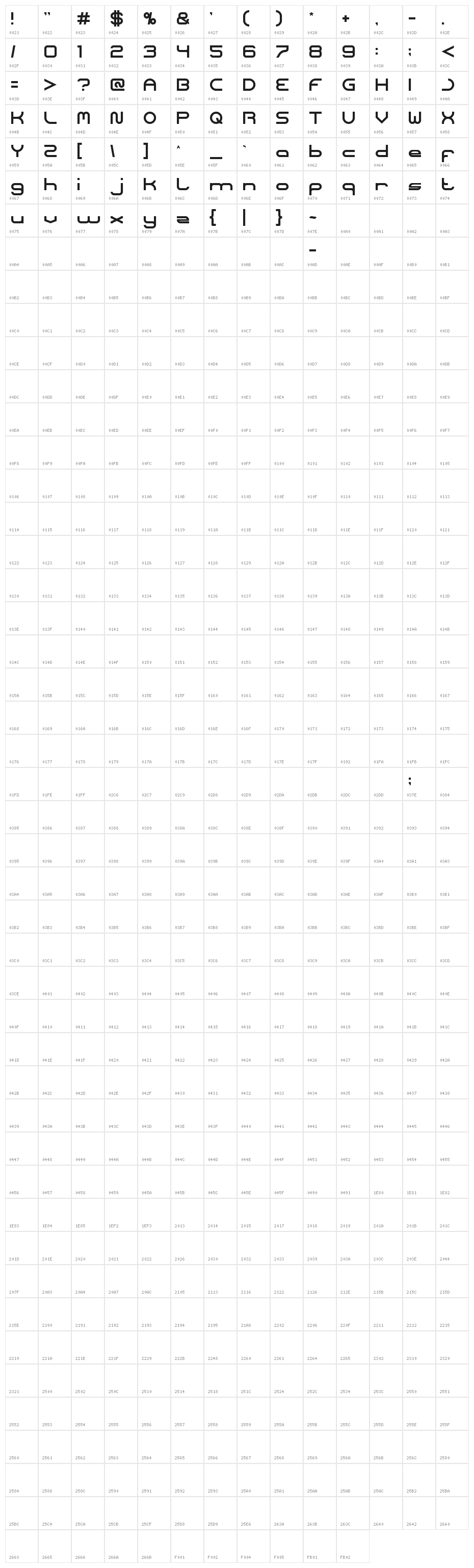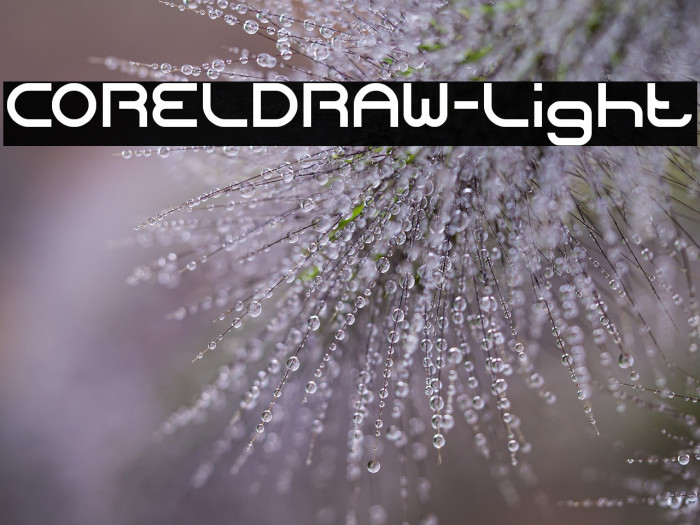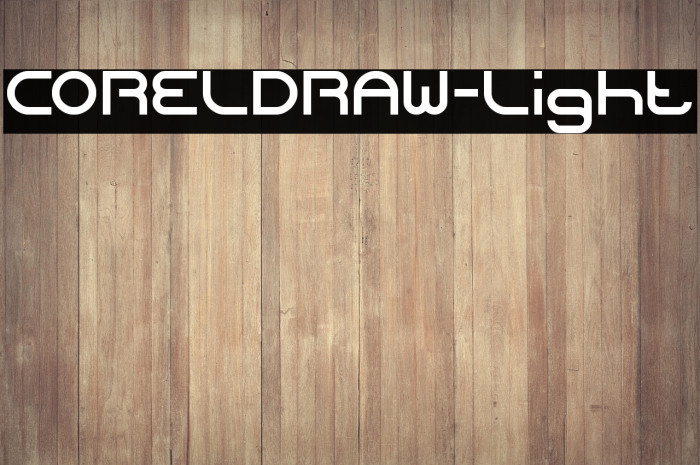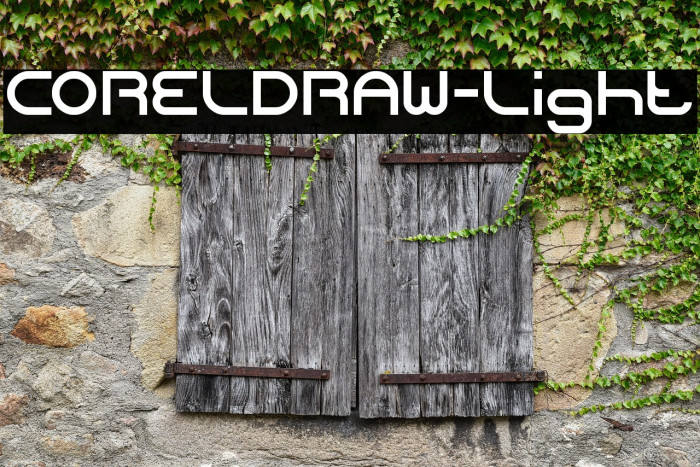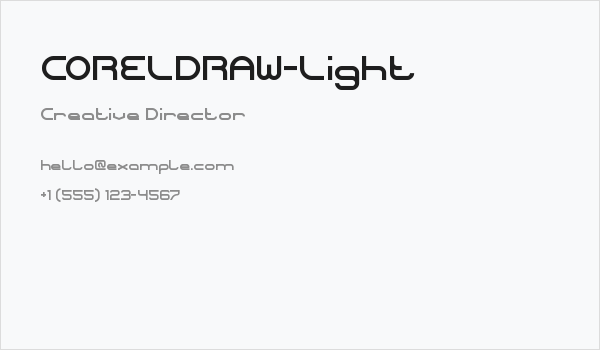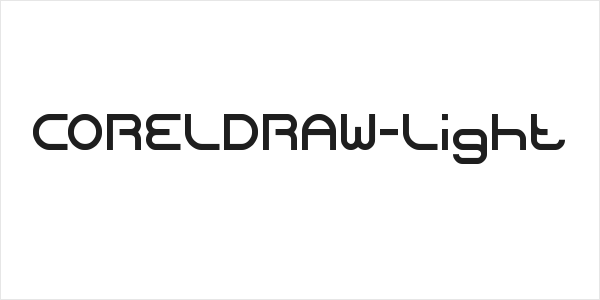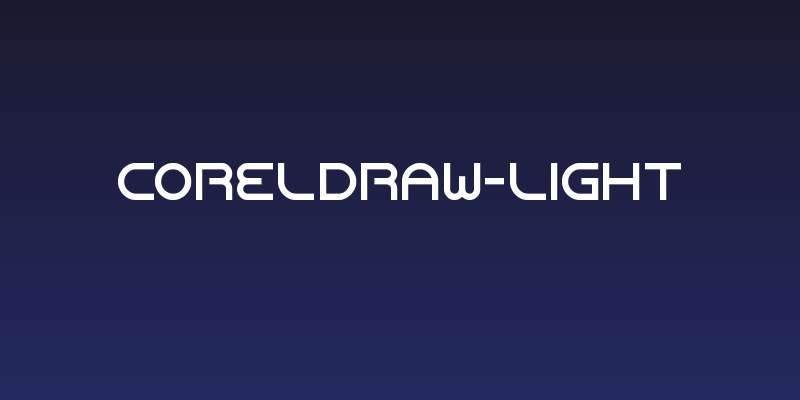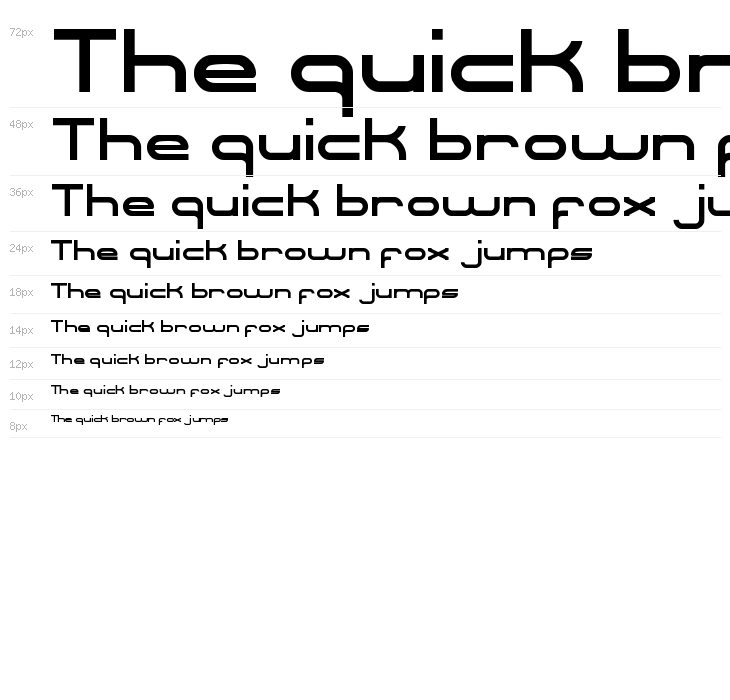
CORELDRAW-Light Font
CORELDRAW-Light Description
This font features a modern and futuristic design with a geometric structure. The characters are constructed with clean, straight lines and rounded edges, giving it a sleek and contemporary appearance. The uppercase and lowercase letters maintain a consistent style, with a uniform height and width that enhances readability. The numerals and special characters follow the same design principles, ensuring a cohesive look across all text elements. The font's unique style makes it suitable for projects that require a modern and tech-savvy aesthetic.
| Use Case | Headlines, Logos, Digital Interfaces |
| Proposed Projects | Ideal for technology branding, digital interfaces, and modern advertising campaigns. |